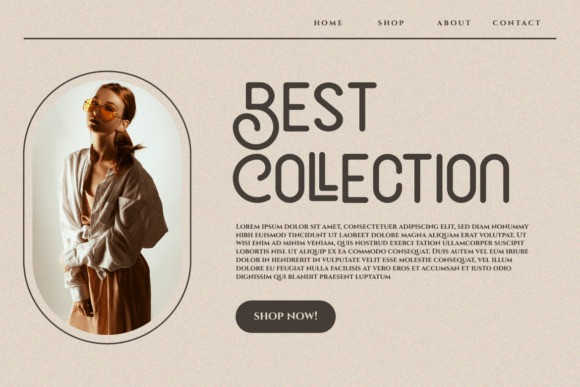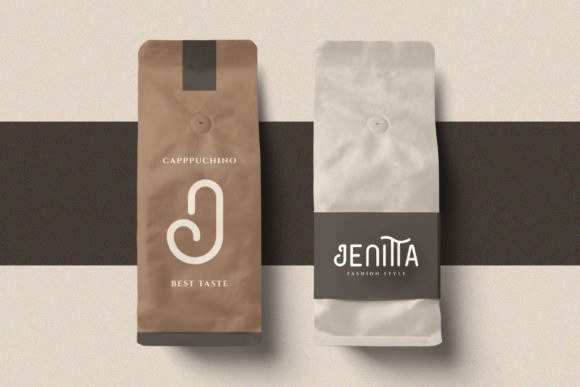
Bentto Font
Bentto Font is a creative and unique sans serif font by Iwan Alwan, featuring unconventional, artistic letterforms that set it apart from traditional designs. Perfect for branding, logos, and modern editorial layouts, Bentto adds a fresh, inventive touch to any project. With multilingual support, ligatures, and alternates, Bentto combines versatility with a playful, innovative aesthetic, making it ideal for designs that aim to stand out with originality and style.
This fonts are great for product logo,wedding card logo, clothing brand logo, Vintage design and much more.